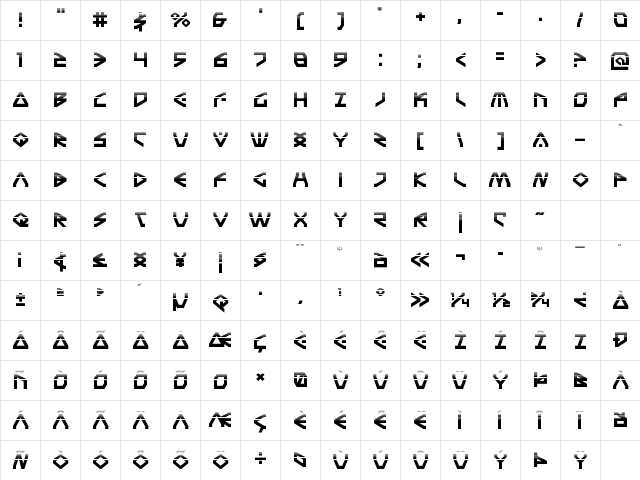
Terra Firma Halftone Regular
Terra Firma Halftone Family
Design Context for Terra Firma Halftone
Terra Firma Halftone is a composed and adaptable typeface that performs quietly and consistently across a wide range of design contexts.